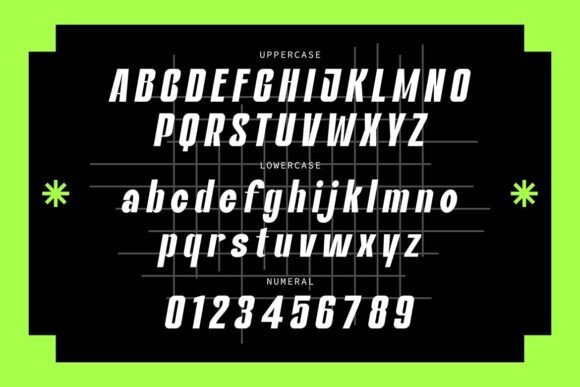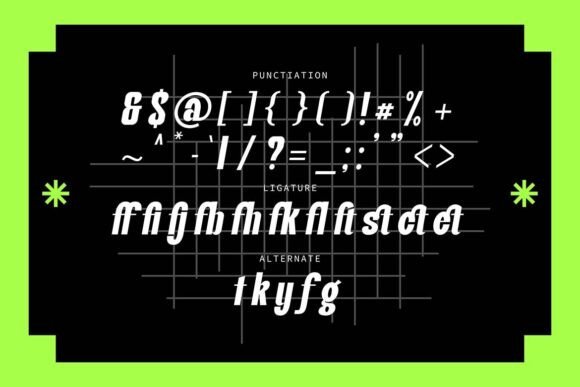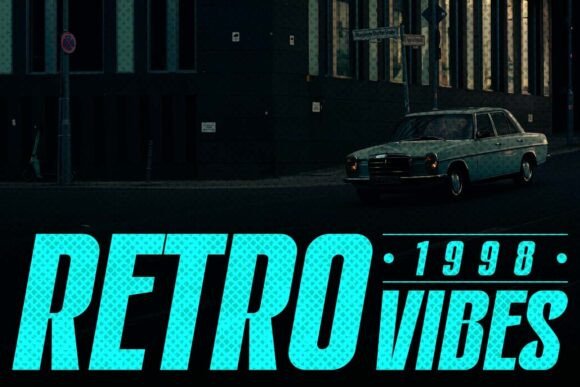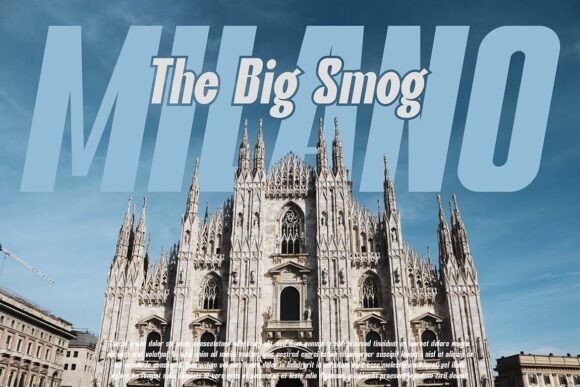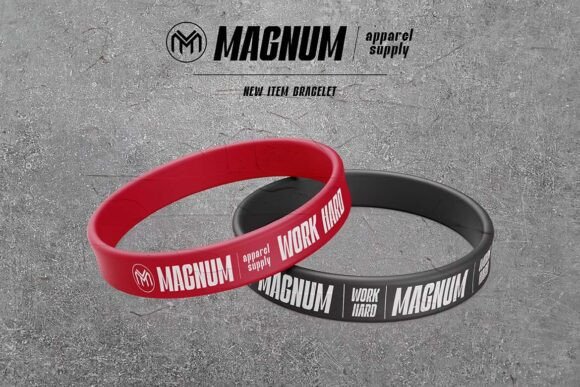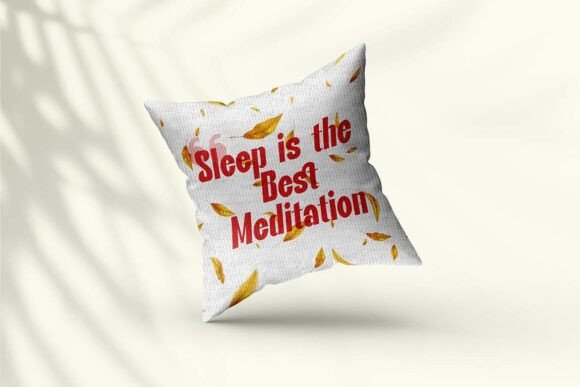
Introducing Dopelight Font: The Ultimate Display Font for Bold and Elegant Designs
In the world of typography, a font can make or break a design. If you’re a designer or crafter looking for a font that exudes chic elegance and a bold spirit, look no further than Dopelight Font. This cutting-edge italic display font is designed to help you create eye-catching headlines, posters, album covers, and brand identities that demand attention.
The Unique Features of Dopelight Font
Dopelight Font boasts a unique slanted typography that sets it apart from other fonts. Its fresh design and bold style make it perfect for design jobs that require a gutsy, innovative touch. Whether you’re working on a digital or printed project, Dopelight injects a fiercely stylish accent that renders your creations distinctive with an added layer of refinement.
The Vibe of Dopelight Font
Dopelight Font emanates a vibe of action and vitality, making it an ideal solution for designers who want to make a statement. Its modern sophistication and audacious attitude meet in a font that’s both elegant and bold. With Dopelight, you can add a touch of glamour and sophistication to your designs, making them stand out from the crowd.
Uses of Dopelight Font
Dopelight Font is a versatile font that can be used in a variety of design projects, including:
- Headlines and titles: Dopelight’s bold and italic style makes it perfect for headlines and titles that need to grab attention.
- Posters and flyers: Add a touch of elegance and sophistication to your posters and flyers with Dopelight Font.
- Album covers: Dopelight Font is perfect for album covers that require a bold and eye-catching typography.
- Brand identities: Use Dopelight Font to create a unique and memorable brand identity that stands out from the competition.
Why Choose Dopelight Font?
There are many fonts available in the market, but Dopelight Font stands out for its unique features and benefits. Here are some reasons why you should choose Dopelight Font for your next design project:
- Unique and bold style: Dopelight Font has a distinctive style that’s both elegant and bold.
- Versatile: Dopelight Font can be used in a variety of design projects, from digital to printed formats.
- Easy to read: Despite its bold style, Dopelight Font is easy to read, making it perfect for headlines and titles.
- High-quality design: Dopelight Font is designed with high-quality and precision, ensuring that it looks great in any design project.
Tips for Using Dopelight Font
To get the most out of Dopelight Font, here are some tips to keep in mind:
- Use it sparingly: Dopelight Font is a bold font, so use it sparingly to avoid overwhelming your design.
- Pair it with other fonts: Dopelight Font can be paired with other fonts to create a unique and interesting typography.
- Experiment with colors: Dopelight Font looks great in a variety of colors, so experiment with different colors to find the one that works best for your design.
Dopelight Font is a cutting-edge italic display font that’s perfect for designers and crafters who want to create bold and elegant designs. Its unique slanted typography, fresh design, and bold style make it an ideal solution for design jobs that require a gutsy, innovative touch. With Dopelight Font, you can add a touch of glamour and sophistication to your designs, making them stand out from the crowd.